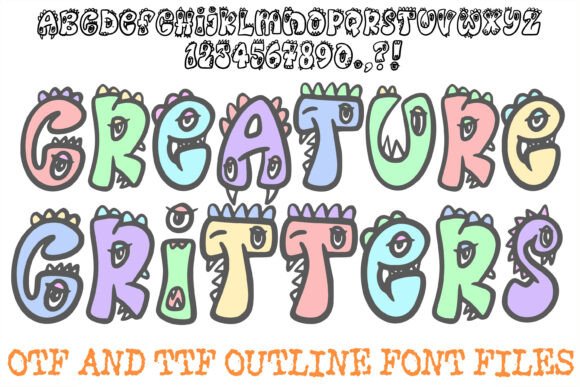
Creature Critters Font: Where Every Letter Has a Monster Personality
There are typefaces that simply sit on a page, and then there are typefaces that practically leap off it, full of energy and mischief. The Creature Critters Font falls firmly into the latter category. It’s a hand-drawn, monster-themed display typeface where every character feels like its own little beast. Each letterform is built from bold, bubbly silhouettes, but the real charm is in the details: googly eyes that seem to watch you, tiny sharp fangs, and playful dinosaur spikes. This isn't just a font; it's a pack of friendly critters ready to infuse your projects with personality.
More Than Just a Spooky Typeface
At first glance, you might categorize it as a "Halloween font," but its potential stretches far beyond October. The Creature Critters Font strikes a unique balance between spooky and cute, making it incredibly versatile. The artisan-sketched quality gives it a handcrafted feel that feels personal and approachable, steering clear of the generic look that can plague many novelty fonts. It’s a premium font in its own right because of this meticulous attention to detail. For designers, this means you’re not just buying glyphs; you’re investing in a set of illustrated characters that can become the cornerstone of a brand's visual identity.
Consider its application in logo design. A gaming channel aiming for a fun, accessible audience could use this typeface to instantly communicate a sense of playfulness and adventure. Similarly, a children's author or publisher could use it for a book title or chapter headings, creating an immediate connection with young readers. The font does much of the heavy lifting in storytelling, suggesting a world of friendly monsters and imaginative play before the reader even engages with the text itself. This is the power of a truly creative font—it shapes perception from the first glance.
Practical Applications for Creative Professionals
For entrepreneurs and marketers, choosing the right font is a strategic decision. The Creature Critters Font excels in projects where you need to capture attention and convey a specific, joyful tone. Here’s where it truly shines:
- Kids' Birthday Invitations & Party Supplies: This is a natural fit. The playful, beastly characters are perfect for themes centered around monsters, dinosaurs, or fantasy creatures. It sets a celebratory and whimsical mood immediately.
- Apparel & Merchandise: On a t-shirt, hoodie, or tote bag, the font acts as a graphic element itself. Its bold silhouette ensures visibility, while the detailed illustrations reward a closer look, making it ideal for statement pieces.
- Social Media Graphics & Thumbnails: In a fast-scrolling environment, you have a split second to grab attention. The unique, character-driven nature of this typeface can stop thumbs and boost engagement for YouTube channels, Instagram posts, or TikTok videos, especially in the gaming, animation, or parenting niches.
- Stickers & Digital Products: For crafters and digital creators, the font is perfect for generating custom stickers, planner graphics, or printable wall art. Its self-contained character designs make each letter or symbol a standalone piece of art.
When integrating it into a larger brand identity, it’s best used as a headline or accent font. Pairing it with a clean, simple sans serif font for body text creates a necessary contrast that ensures overall readability while letting the Creature Critters Font deliver its full personality punch. This kind of thoughtful font pairing is what separates amateur design from professional, cohesive branding.
- Test for Context: Type out the exact words or phrases you plan to use. A font's personality can change based on the letters it contains. Does your brand name or headline look good in these critter forms?
- Evaluate Readability at Scale: View your test text at the intended size—whether it's a tiny sticker or a large poster header. The intricate details of the eyes and spikes should remain clear and charming, not turn into a visual mess.
- Explore the Full Character Set: A quality font often includes alternates, ligatures, and extended punctuation. See what extras are included. These additional assets can add variety and prevent your text from looking repetitive.
- Consider Commercial Licensing: If you're using the font for a client project, merchandise for sale, or a monetized channel, you must ensure you have the correct commercial license. This is a critical step for professionalism and legal peace of mind.
Ultimately, the Creature Critters Font is a powerful tool in a designer's arsenal for injecting fun, narrative, and handcrafted appeal into a project. It’s not for corporate reports or body copy, but for the moments where you want to make a bold, memorable statement that resonates with a sense of playful imagination. Used thoughtfully, it can transform a simple design into something that feels alive, engaging, and full of character. It’s a reminder that great typography isn't always about quiet elegance; sometimes, it's about letting a friendly monster roar.